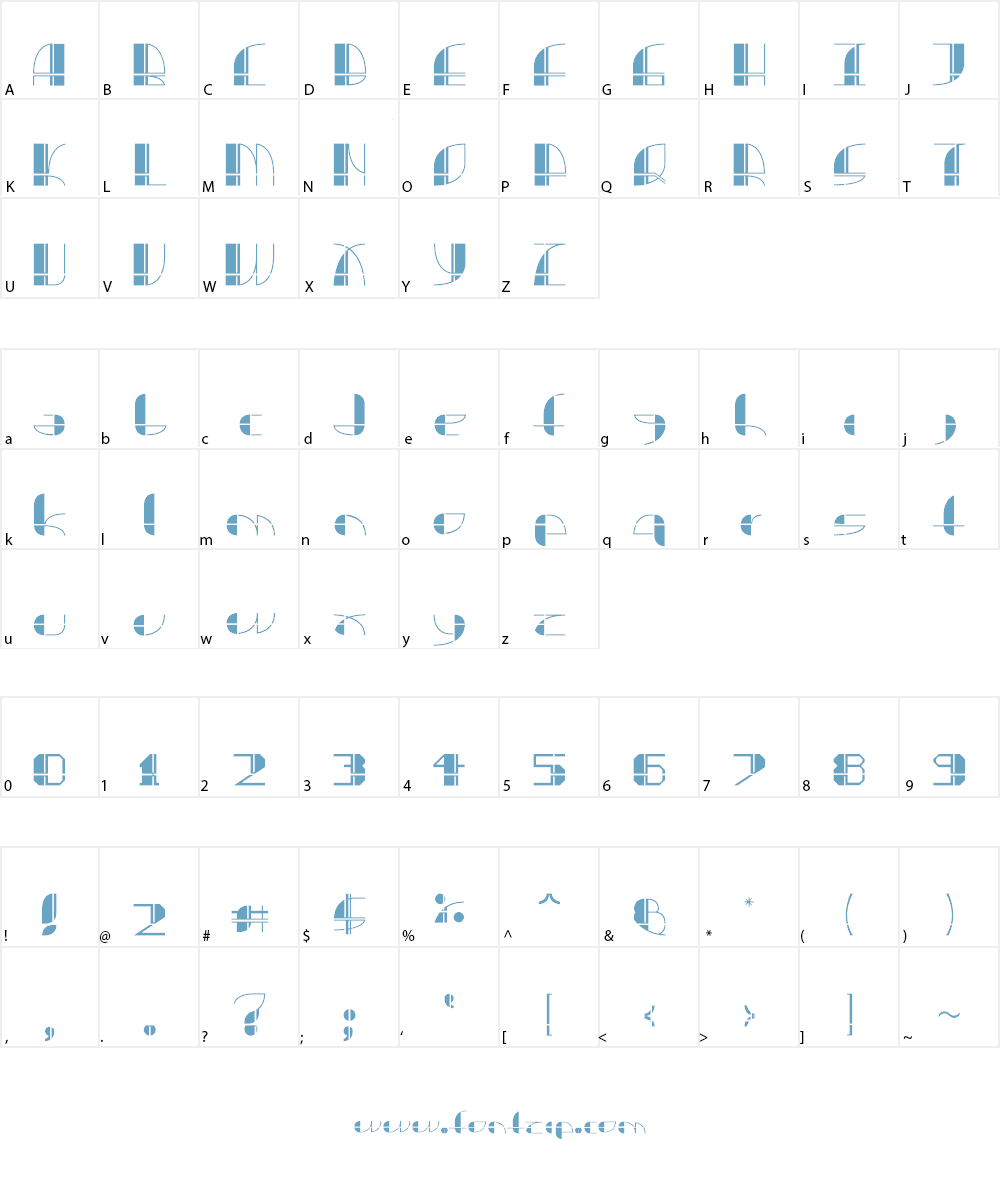
‘Title 20’ was designed and created soley to be used as a display font. The typeface is big, bold and glorious with cohesive curves and cut marks tying each character together.
‘T20’ was originally inspired by the decade of the 1920’s. The final outcome however has been applied to photography from my home town of Taurnaga. From places and sites that I have spent a vast majority of my life.
Finding meaning behind the font is not that complicated. I weighted the coloums to resemble strength and the long curves mirror a soft edge. Creating something that confidently stood out but still holds a reserved and friendly feel. Falling back to aspects of hyper-masculinity in society such as the expectations to be strong and confident and to be sucessful, to be there, to be known.